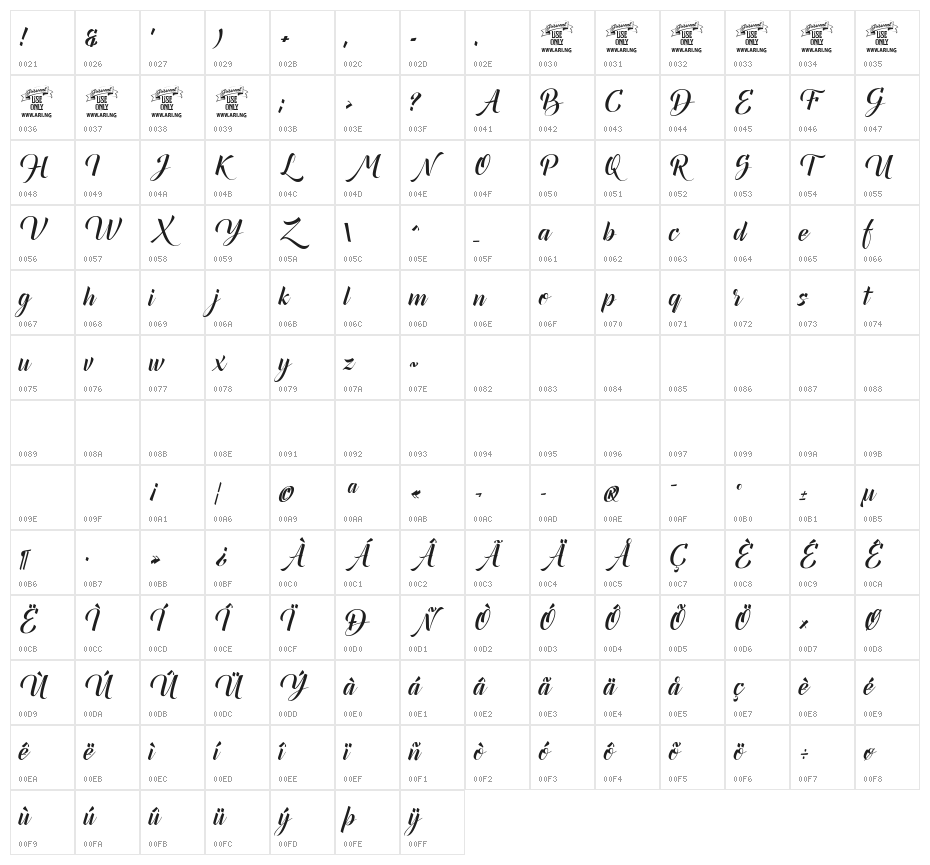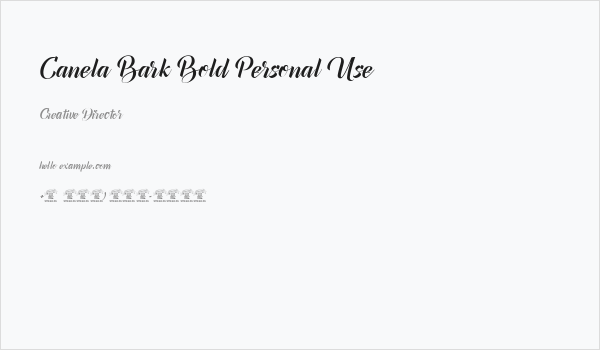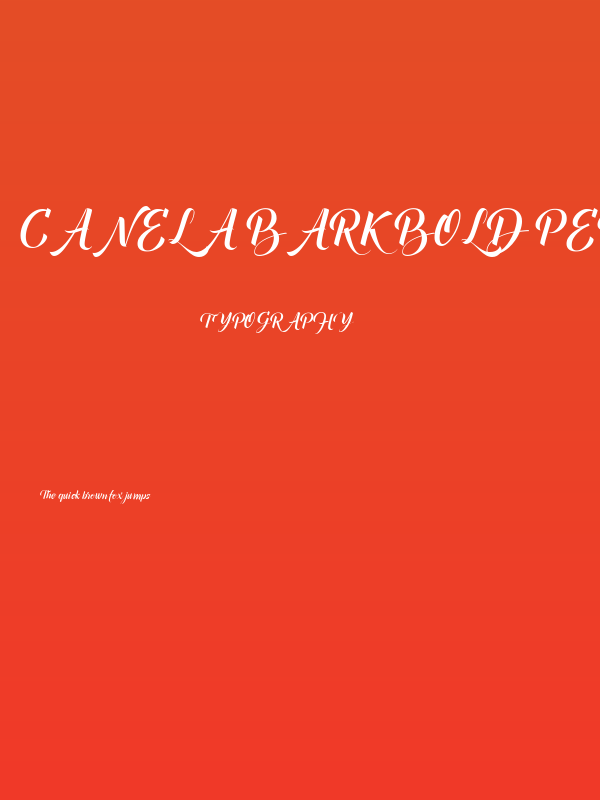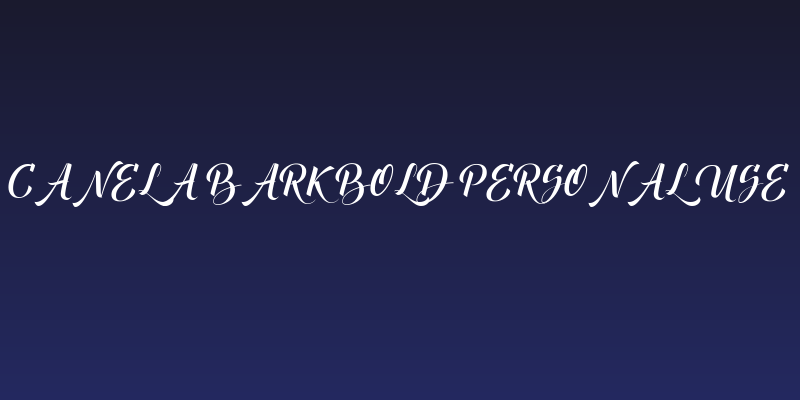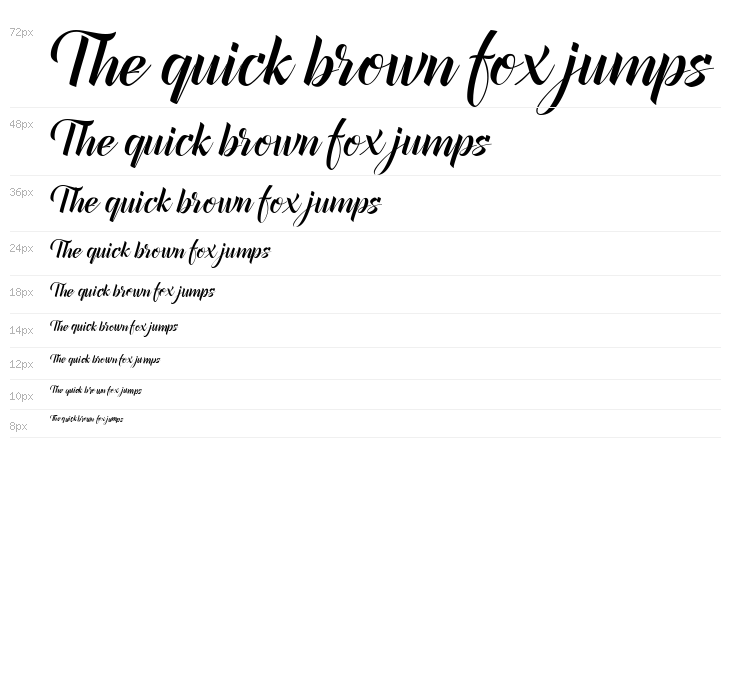
Canela Bark Bold Personal Use Font
Canela Bark Bold Personal Use Description
This font features an elegant and flowing script style, characterized by its smooth, cursive letterforms that convey a sense of sophistication and grace. The uppercase letters are bold and slightly slanted, with intricate loops and swashes that add a decorative flair. The lowercase letters maintain a consistent flow, with connected strokes that enhance readability while preserving the font's artistic appeal. The numerals and special characters are designed to complement the overall aesthetic, maintaining the same fluidity and elegance. This font is ideal for projects that require a touch of class and refinement.
| Use Case | Logos, Invitations, Headlines |
| Proposed Projects | Ideal for wedding invitations, elegant branding, luxury product packaging, and sophisticated event posters. |